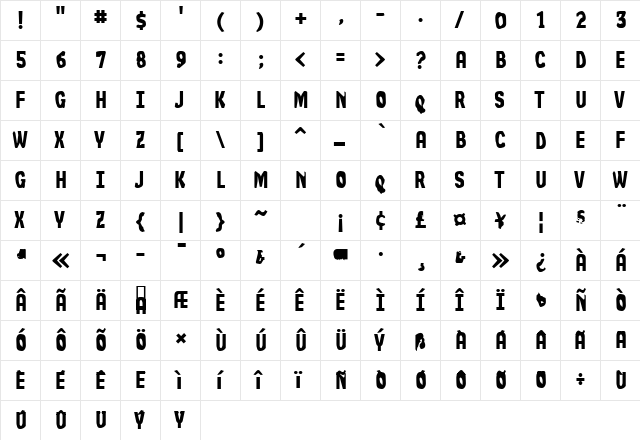
Not So Slim Jim Regular
Not So Slim Jim is a composed and adaptable typeface that performs quietly and consistently across a wide range of design contexts.